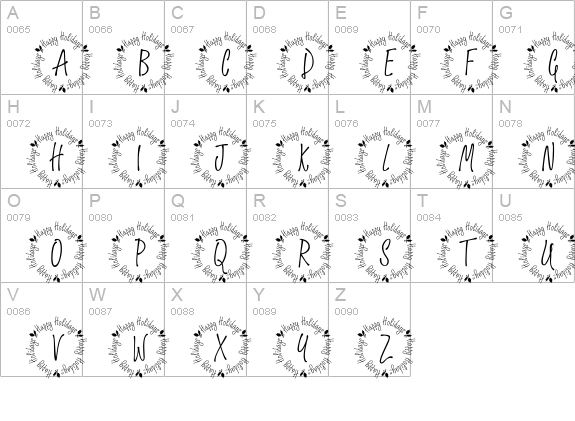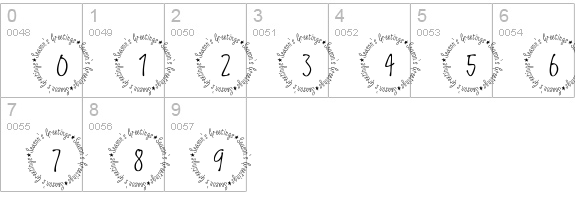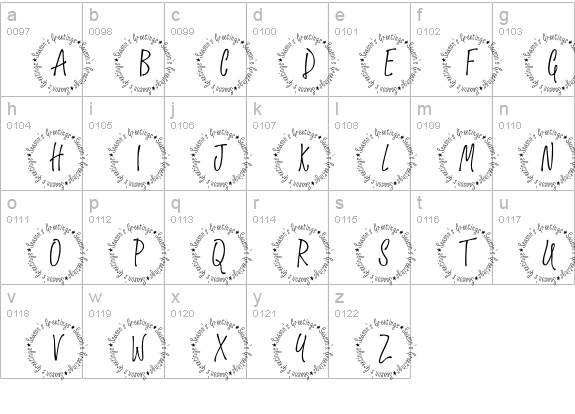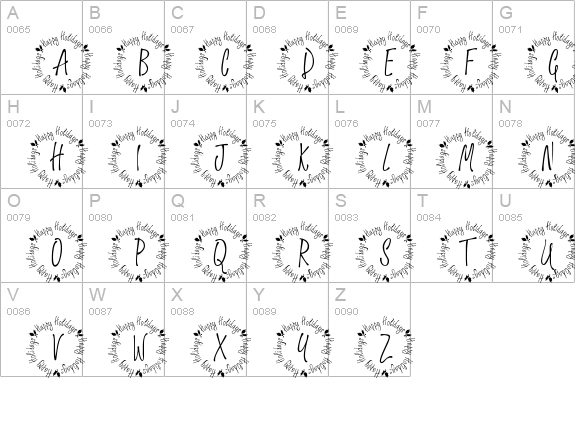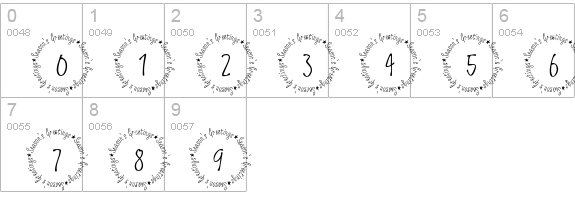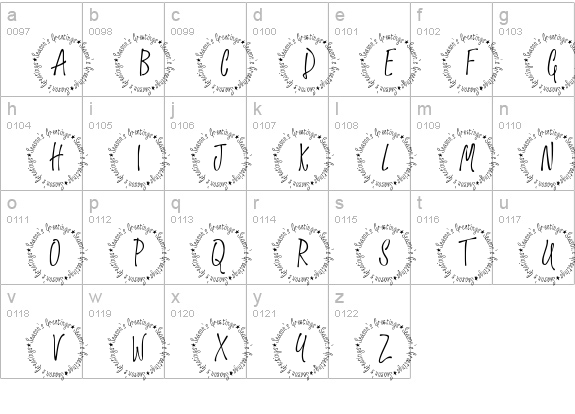
CK Grocery List Holiday Font Details
Introducing CK Grocery List Holiday font, a whimsical and festive typeface perfect for all your holiday-themed projects. With its playful and unique design, this font will bring a touch of cheer to your designs. The CK Grocery List Holiday font is versatile and can be used for a variety of purposes such as greeting cards, invitations, posters, and more. The best part? This delightful font is completely free to download at FontsMarket.com. Simply visit the website and add it to your collection of fonts for all your holiday design needs. Let CK Grocery List Holiday font add a special touch to your creations this holiday season!